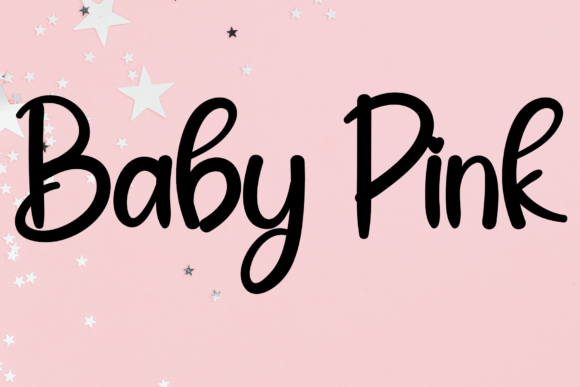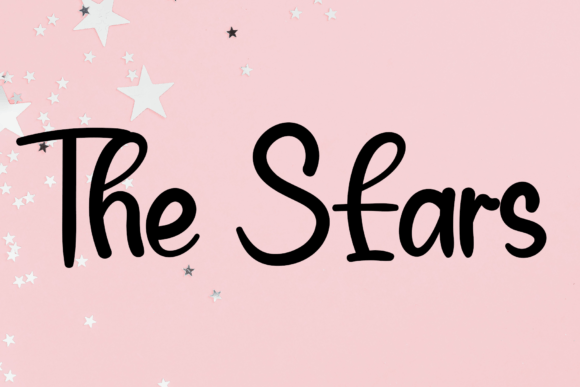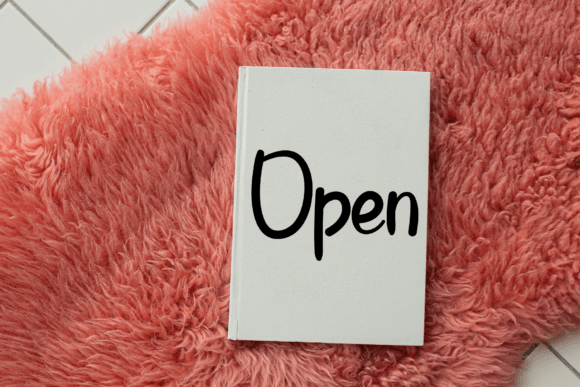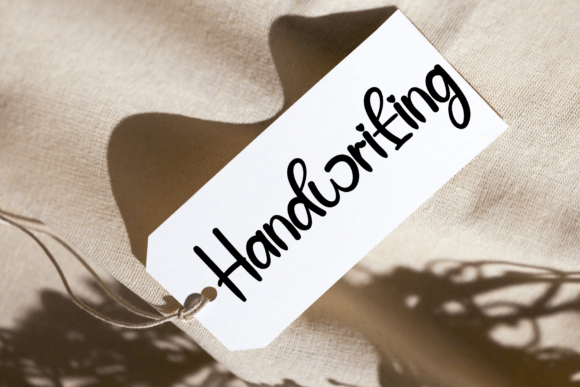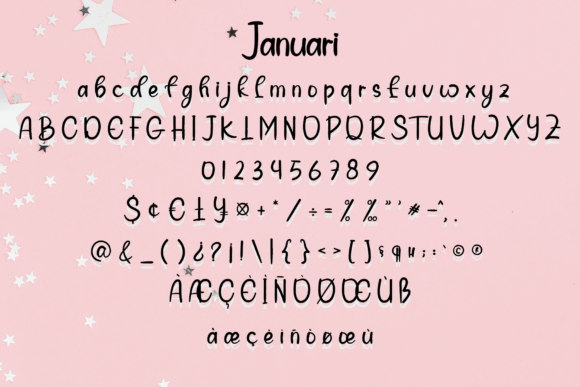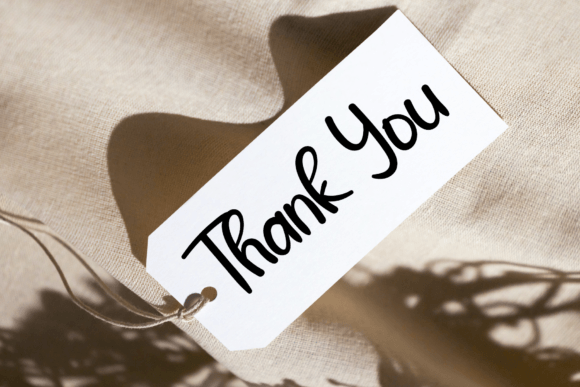
Introduction to Januari Font
Januari is a sweet and cursive handwritten font.
This gentle font will look gorgeous on a variety of design ideas It will add a joyful and romantic touch to each of your projects.
Key Features of Januari Font
Why Choose Januari Font?